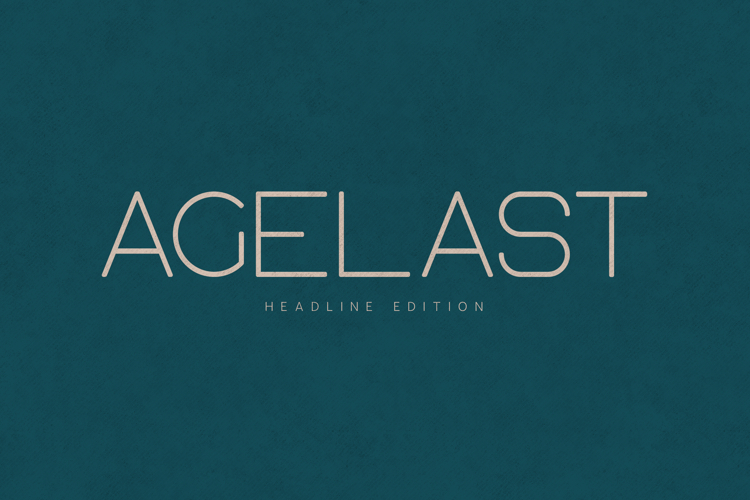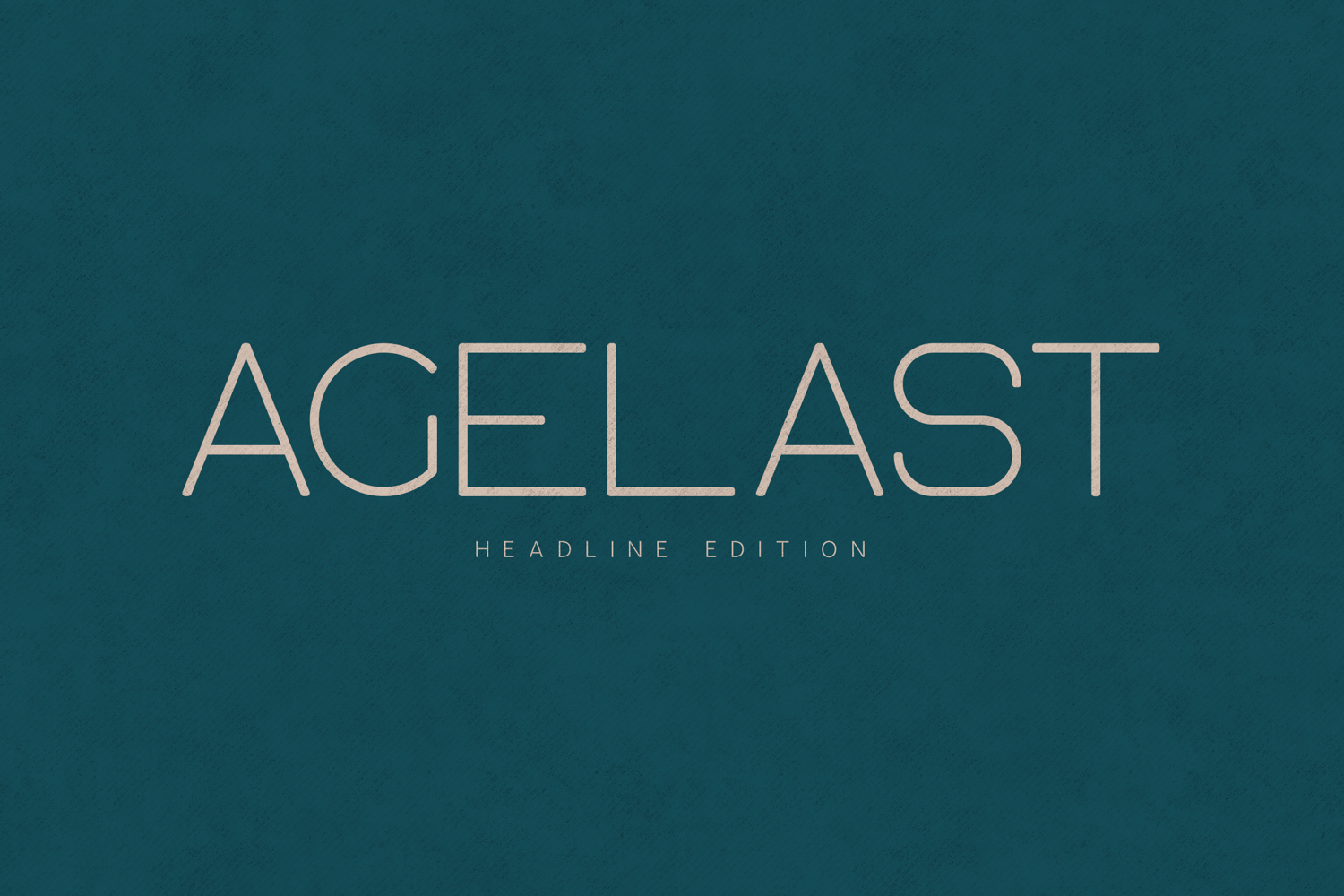
Agelast Headline Edition Minimal Sans Serif Font
Agelast – Headline Edition is a refined minimal sans serif font designed for clean, modern, and elegant typography. With thin strokes, balanced proportions, and a calm contemporary feel, this font is ideal for headlines, branding, editorial layouts, posters, websites, UI concepts, and sophisticated visual identities.
The Headline Edition focuses on clarity and atmosphere, offering a lightweight yet confident presence that feels modern and timeless. Its subtle geometry and generous spacing make Agelast perfect for minimalist designs where precision and elegance matter.
Agelast – Headline Edition includes a full character set with extensive multilingual support, numerals, punctuation, and special symbols, making it suitable for both print and digital applications.
• Uppercase & lowercase letters
• Numbers & punctuation
Agelast – Headline Edition is crafted for designers who value minimalism, sophistication, and modern clarity in typography.